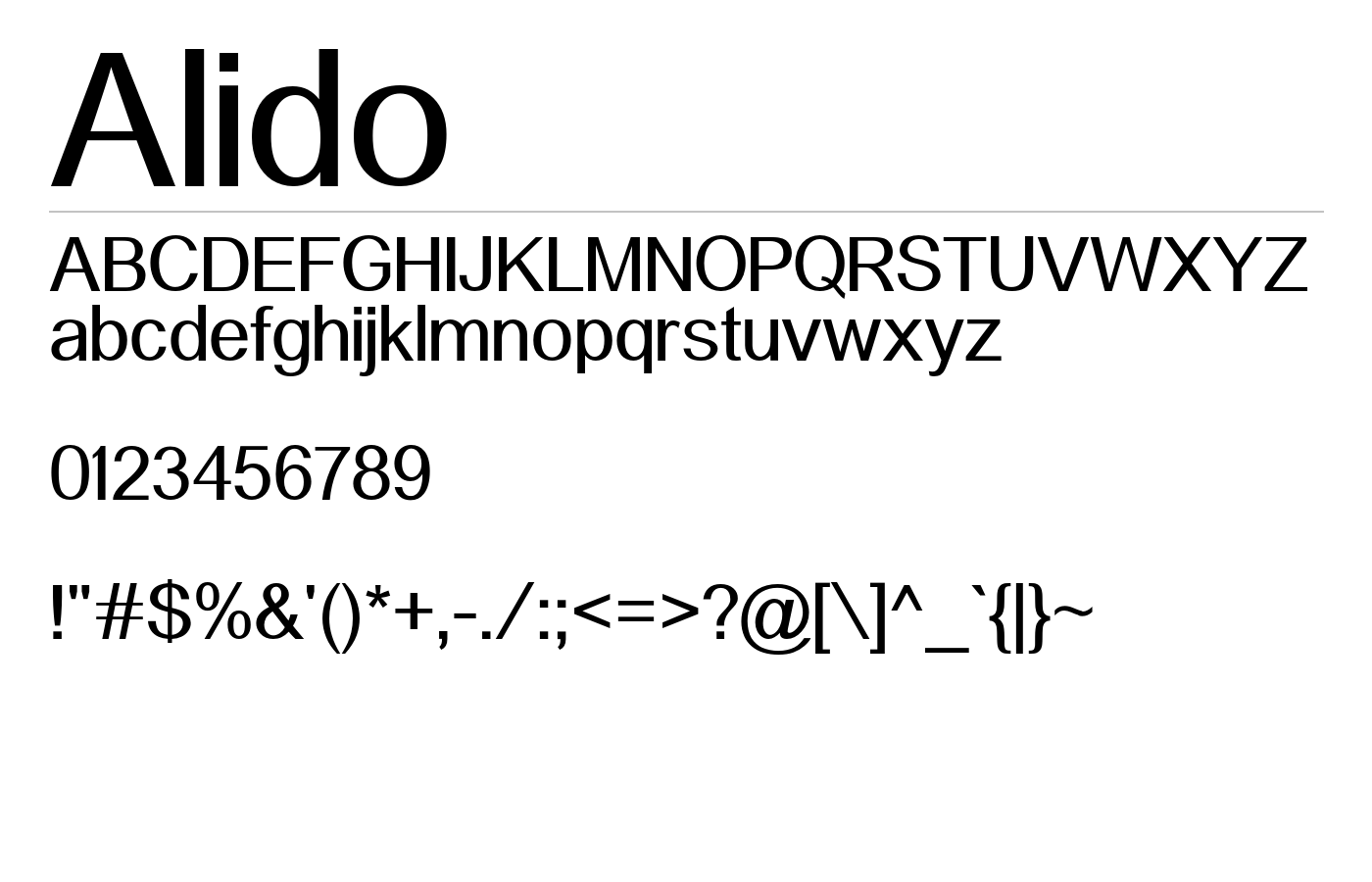
Alido is a sleek, modern sans serif font with a clean and geometric design, featuring a regular weight and balanced proportions that deliver excellent readability. Its tall x-height and straightforward letterforms make it ideal for professional and contemporary branding, editorial work, and digital interfaces. This font communicates clarity and sophistication, making it perfect for websites, corporate materials, and headlines where a crisp, no-nonsense appearance is desired.
Alido Font
About Alido Font
| Font family | Alido Font |
| Designer | SummitType Fonts |